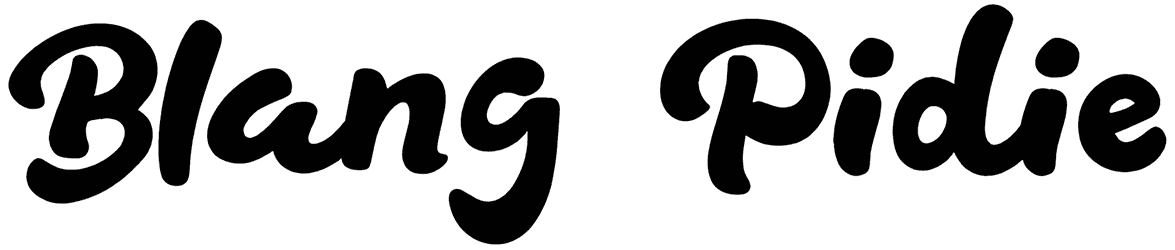
Blang Pidie Font
Blang Pidie is a feminine, fluid typeface with a casual handwritten feel that has a variety of potential uses. This script font is suitable for completing your digital and printed creative products and can bring modern beauty to them.
If you want to turn any creative idea into a real artwork, this calligraphy font can be a tool for your progress. This font’s natural and organic twists will help you create a wonderful greeting card, unique invitations, and labels on the packaging.